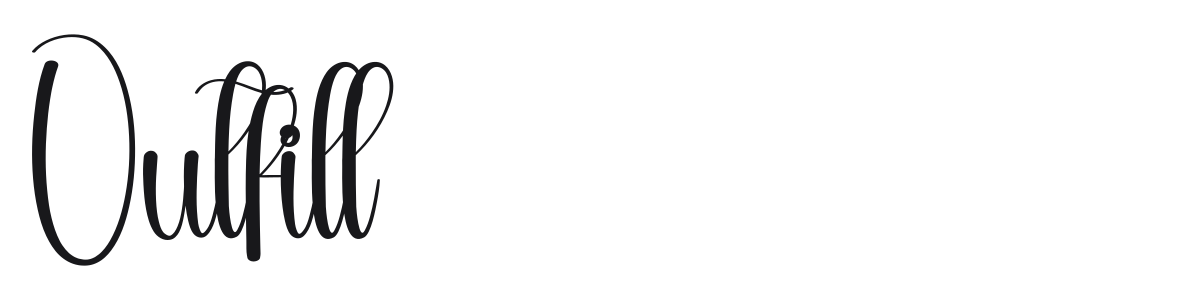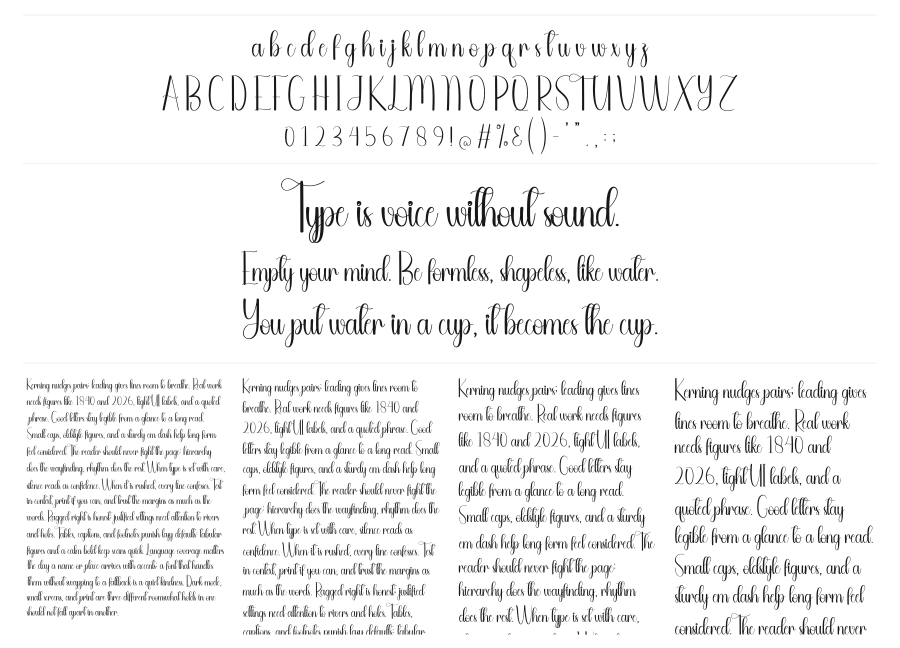
Outfill
Outfill is a flowing casual script with generous loops, swashy ascenders, and a lively bouncing baseline. The high contrast between thick stems and hairline connectors gives it a handcrafted elegance that sits somewhere between a calligraphy pen and a modern brush. It reads as celebratory and warm, at home on wedding stationery, greeting cards, and boutique packaging.